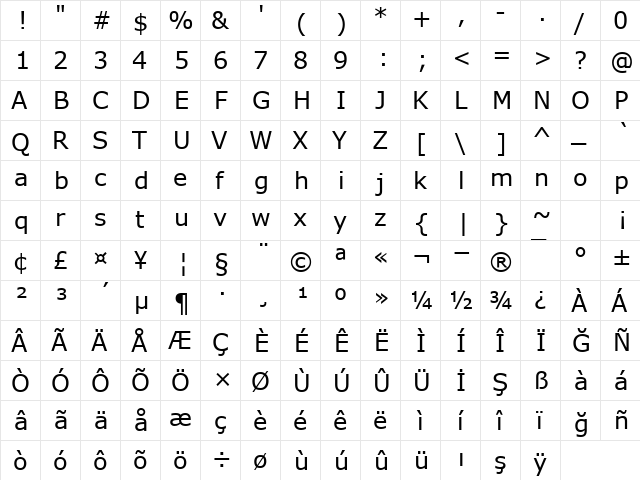
TR Verdana Regular
TR Verdana offers clean, dependable letterforms without strong stylistic allegiance, making it a practical choice for designers who need flexibility.